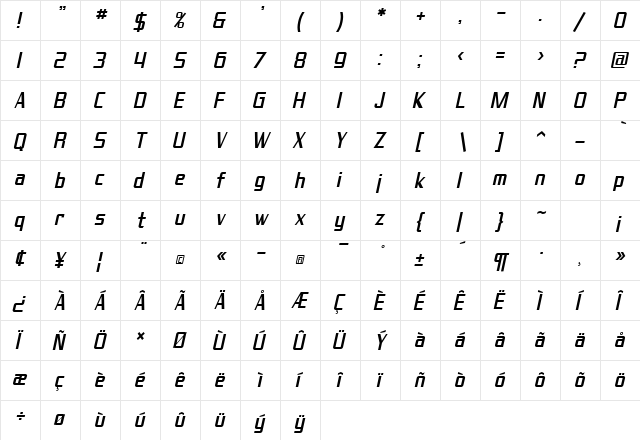
SF Theramin Gothic Condensed Oblique Font Preview
Design Context for SF Theramin Gothic Condensed Typeface
SF Theramin Gothic Condensed has the quiet confidence of well-executed sans-serif typography: versatile, unobtrusive, and dependable at any size. The dynamic lean of this cut emphasises speed and emphasis in any layout. The condensed width makes it efficient for tight spaces without sacrificing legibility.
Font Pairing: Works well alongside a characterful serif or display font that can carry the expressive load while SF Theramin Gothic Condensed handles the functional copy.
Pro Tip: Use SF Theramin Gothic Condensed tightly set in headlines and banners — its condensed proportions make it ideal for maximum impact in minimum horizontal space.